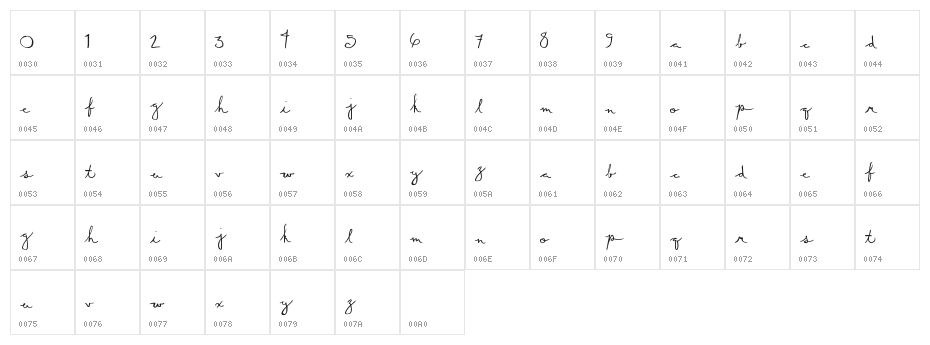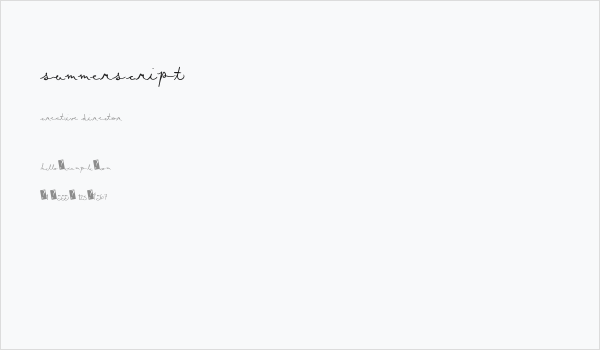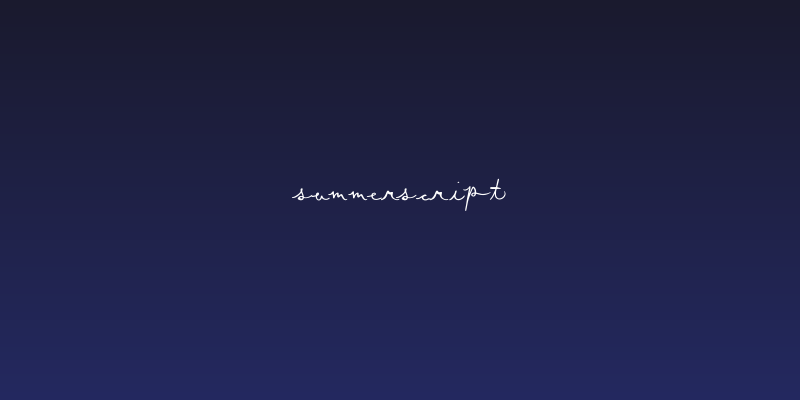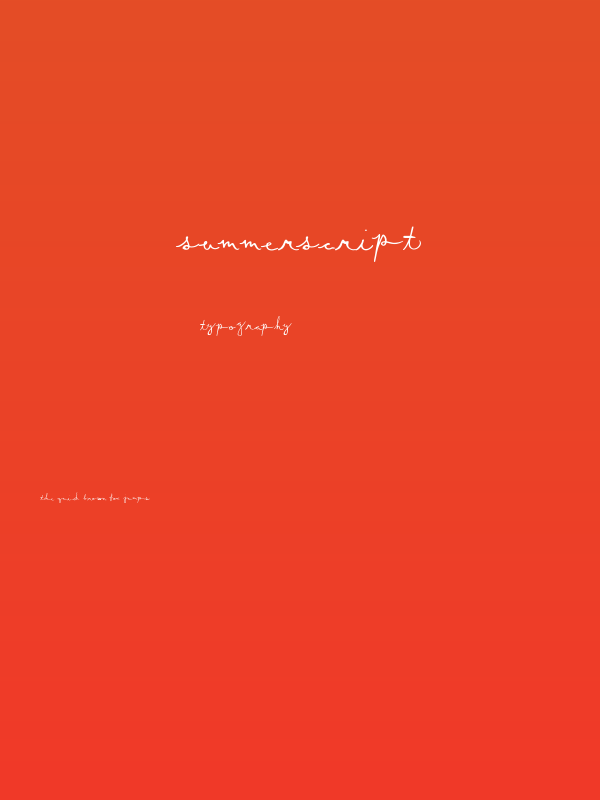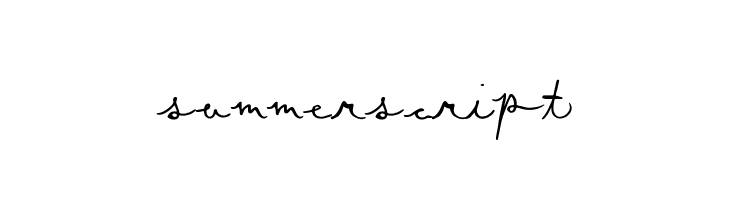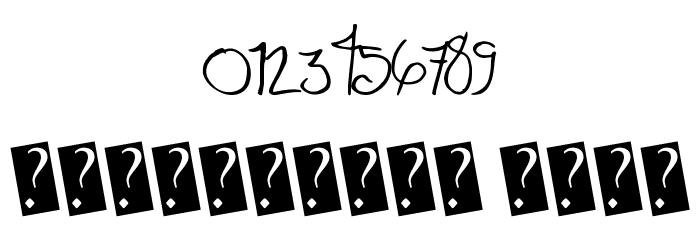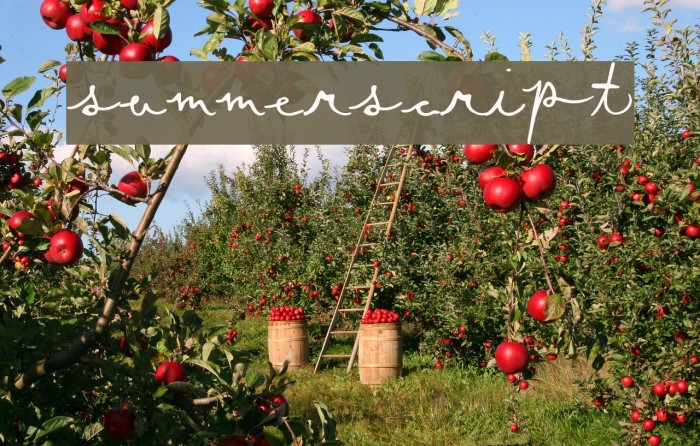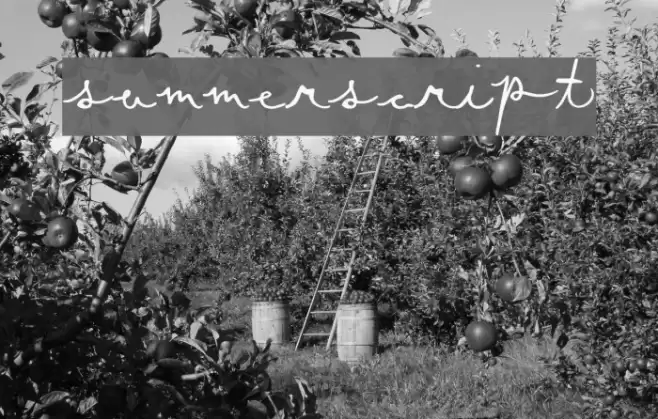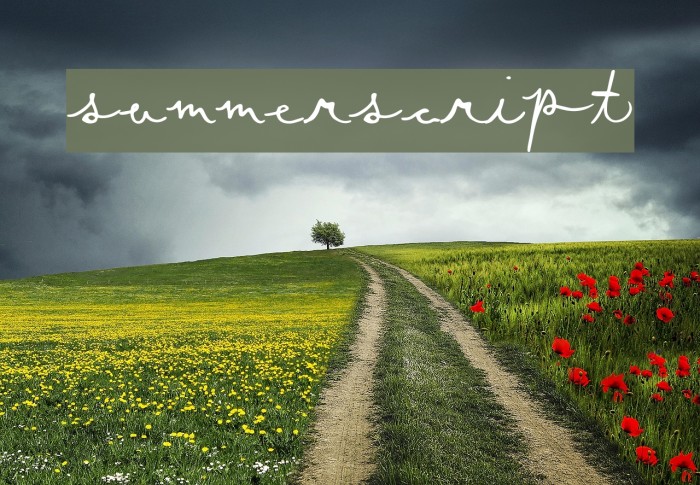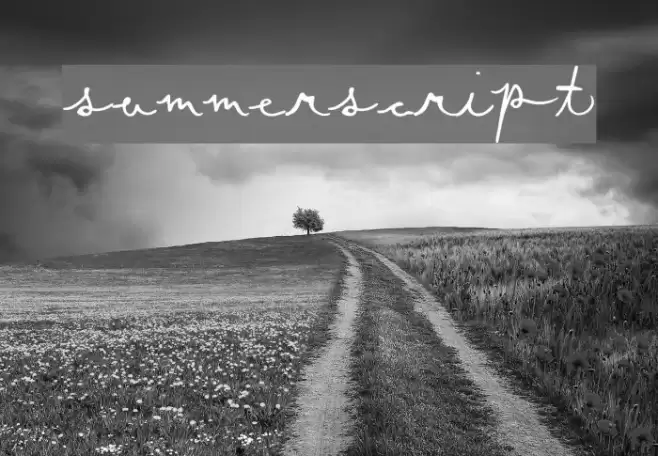
SummerScript Font
SummerScript Description
This font exudes a casual, handwritten style with a playful and relaxed vibe. The letters are fluid and connected, mimicking the natural flow of cursive handwriting. Each character has a unique flair, with varying stroke thickness that adds a dynamic and lively feel. The lowercase letters are particularly expressive, with loops and swirls that enhance the font's whimsical nature. The numbers maintain the same playful style, ensuring consistency throughout. This font is perfect for projects that require a personal touch, such as invitations, greeting cards, or creative branding.
| Overall Style | Casual, Whimsical |
| Use Case | Headlines, Invitations, Greeting Cards |
| Proposed Projects | Ideal for invitations, greeting cards, personal branding, and creative projects. |